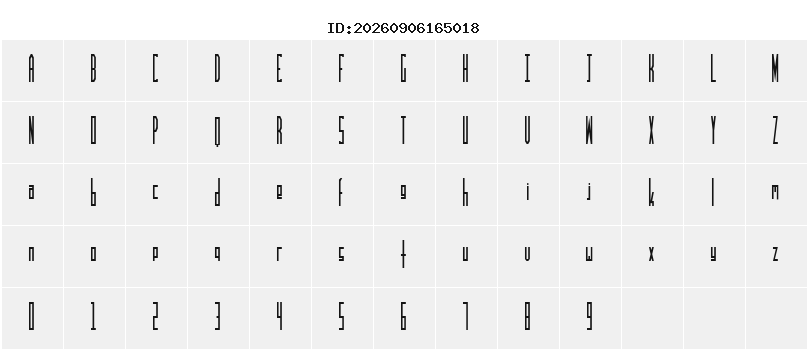
TRUCK Rocketry Preview
• Font Name: TRUCK Rocketry
• Full Font Name: TRUCK Rocketry
• PostScript Name: TRUCKRocketry
About TRUCK Rocketry.ttf
TRUCK Rocketry.ttf is a modern, elegant sans-serif font designed for ultimate readability and visual harmony. Perfect for branding, headlines, web design, and print materials.